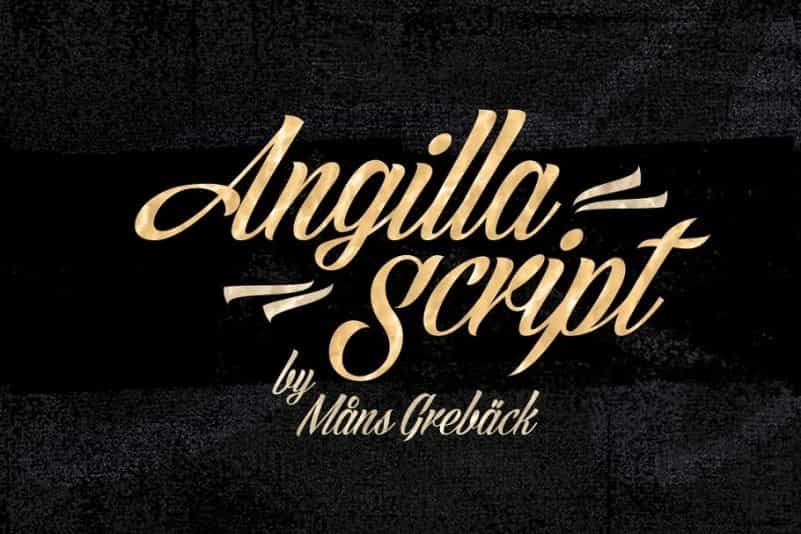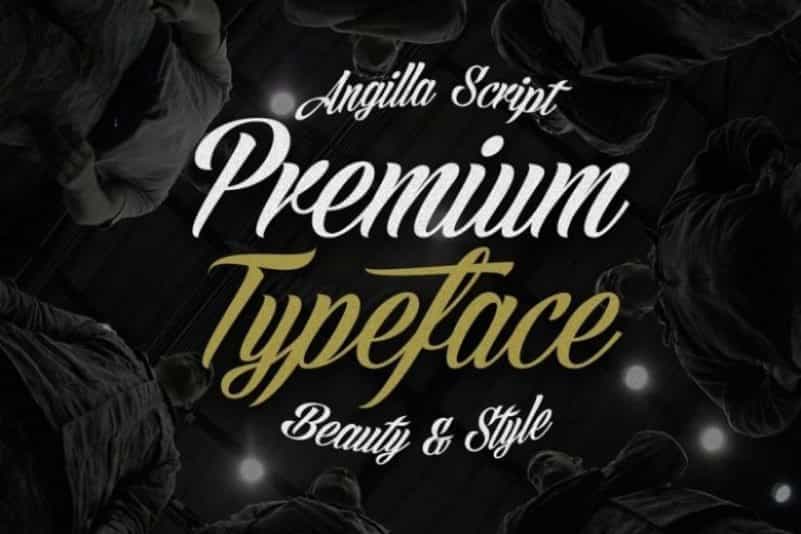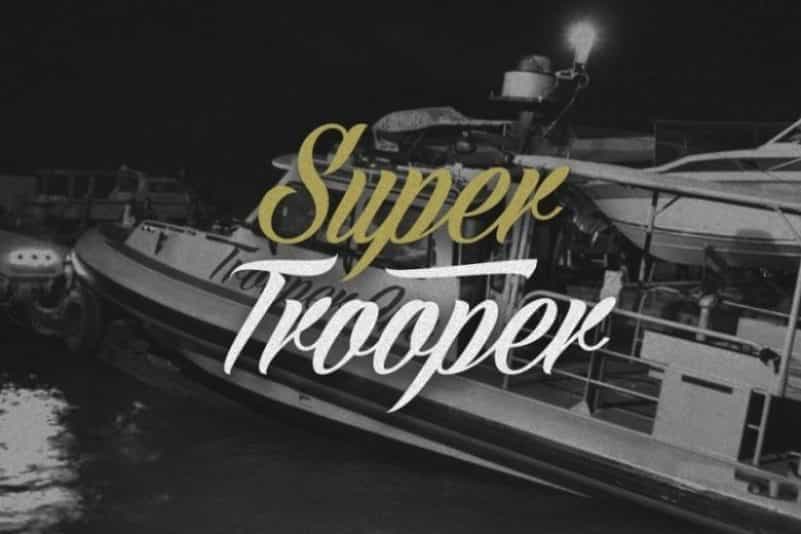
Angilla Script is a Calligraphy Typeface inspired by tattoos, designed by Måns Grebäck between 2019 and 2020. While embodying a touch it exudes confidence, attitude and daring flair. Whether, for a concert poster, logo design or to add some personality to any project this font shines.